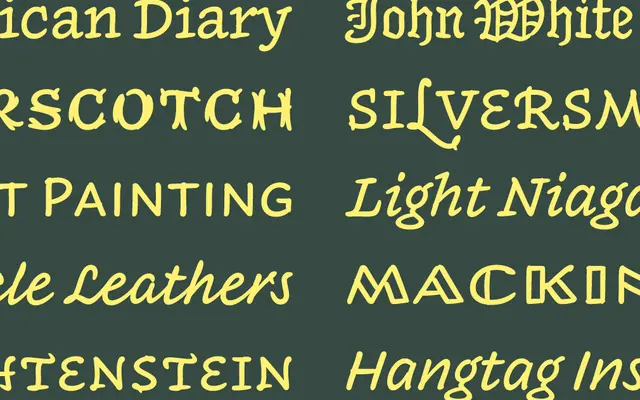
Inkwell
Hoefler & Co · Jonathan Hoefler and the H&Co Design Studio · 2016
A handwritten type system spanning sans, serif, script, blackletter and tuscan, drawn in a single informal voice for casual editorial and identity work.
A handwritten family by Jonathan Hoefler and the H&Co studio that treats hand lettering as a system rather than a single style. Six subfamilies, including sans, serif, script, blackletter, tuscan and open, share the same casual hand, with multiple weights and italics. Useful for packaging, children's titles, casual editorial and identity work that wants a hand-drawn feel without the brittleness of one-note script fonts.
A handwritten family that crosses categories, with serif, sans, script, blackletter and tuscan styles drawn in a unified informal hand for use across long documents and casual systems.